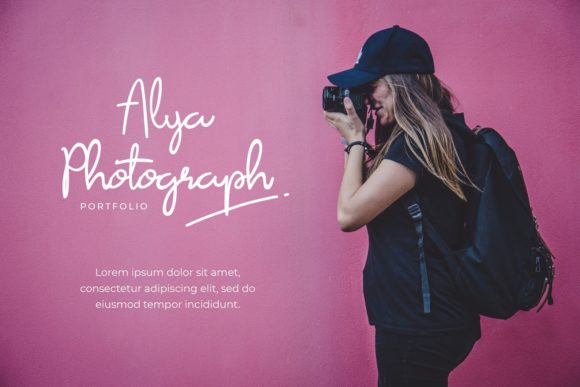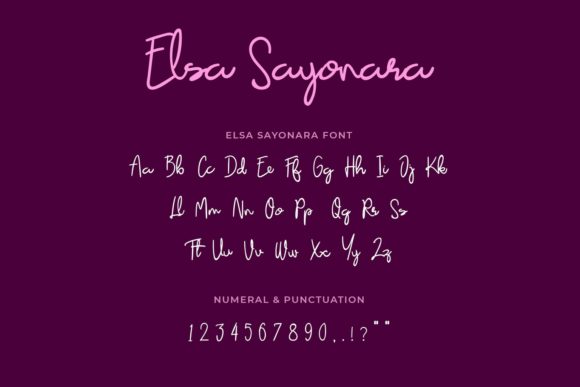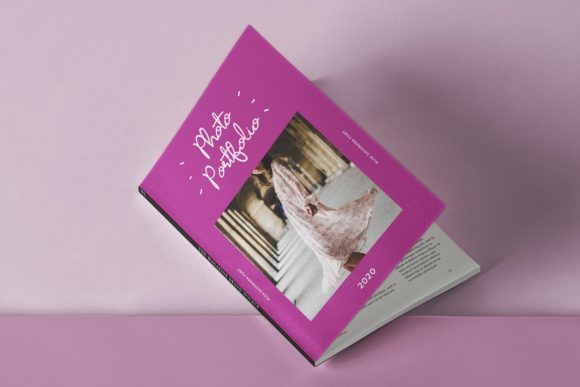
Introducing Elsa Sayonara Font: A Simple yet Delicate Handwritten Style
Are you a designer or crafter looking for a font that exudes simplicity and elegance? Look no further than the Elsa Sayonara Font. This beautiful handwritten font is perfect for a wide range of design ideas, and its delicate nature makes it a versatile choice for various projects. In this article, we’ll dive into the world of Elsa Sayonara Font and explore its features, benefits, and uses.
What is Elsa Sayonara Font?
Elsa Sayonara Font is a simple and delicate handwritten font that has gained popularity among designers and crafters. Its elegant and cursive style makes it perfect for adding a touch of sophistication to any design project. The font is easy to read and has a friendly feel to it, making it suitable for a wide range of applications.
Key Features of Elsa Sayonara Font
- Simple and Delicate: Elsa Sayonara Font boasts a simple and delicate design that makes it perfect for designs that require a touch of elegance.
- Handwritten Style: The font has a beautiful handwritten style that gives it a personal and friendly feel.
- Easy to Read: The font is easy to read, making it suitable for body text and headings.
- Versatile: Elsa Sayonara Font can be used for a wide range of design projects, from digital designs to print materials.
Benefits of Using Elsa Sayonara Font
So, why should you choose Elsa Sayonara Font for your design projects? Here are some benefits of using this beautiful font:
- Elegance: Elsa Sayonara Font adds a touch of elegance to any design project, making it perfect for designs that require sophistication.
- Flexibility: The font can be used for a wide range of design projects, from wedding designs to digital products.
- Readability: The font is easy to read, making it suitable for body text and headings.
- Uniqueness: Elsa Sayonara Font has a unique and distinctive style that sets it apart from other fonts.
Uses of Elsa Sayonara Font
Elsa Sayonara Font can be used for a wide range of design projects, including:
- Wedding Designs: The font is perfect for wedding designs, such as wedding invitations, save the dates, and more.
- Digital Products: Elsa Sayonara Font can be used for digital products, such as printable art, planners, and journals.
- Branding: The font can be used for branding projects, such as logos, business cards, and letterheads.
- Signage: Elsa Sayonara Font can be used for signage projects, such as store signs, menus, and more.
Tips for Using Elsa Sayonara Font
Here are some tips for using Elsa Sayonara Font:
- Pair it with Other Fonts: Pair Elsa Sayonara Font with other fonts to create a unique and interesting design.
- Use it for Headings: Use Elsa Sayonara Font for headings and titles to add a touch of elegance to your design.
In conclusion, Elsa Sayonara Font is a beautiful and versatile font that can be used for a wide range of design projects. Its simple and delicate design makes it perfect for adding a touch of elegance to any design. With its ease of use and flexibility, Elsa Sayonara Font is a great choice for designers and crafters. So, add it to your font collection today and see the amazing results for yourself!